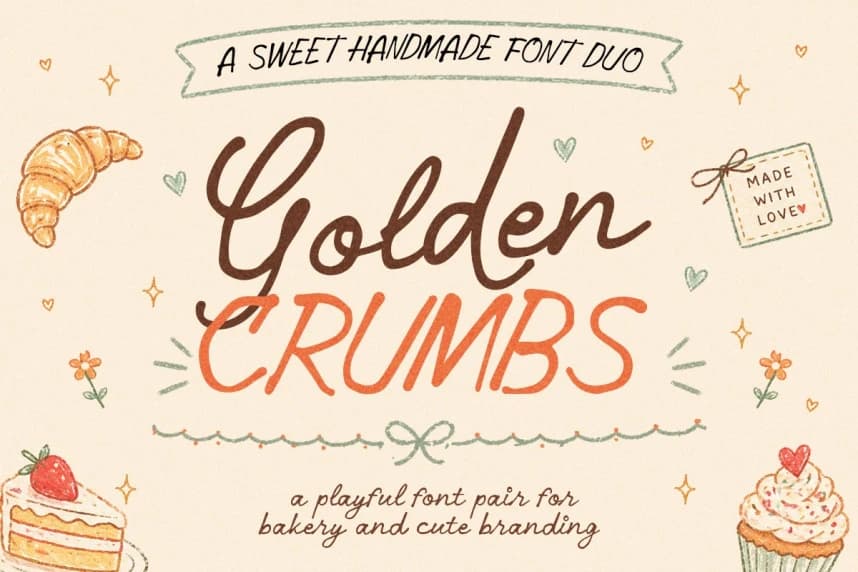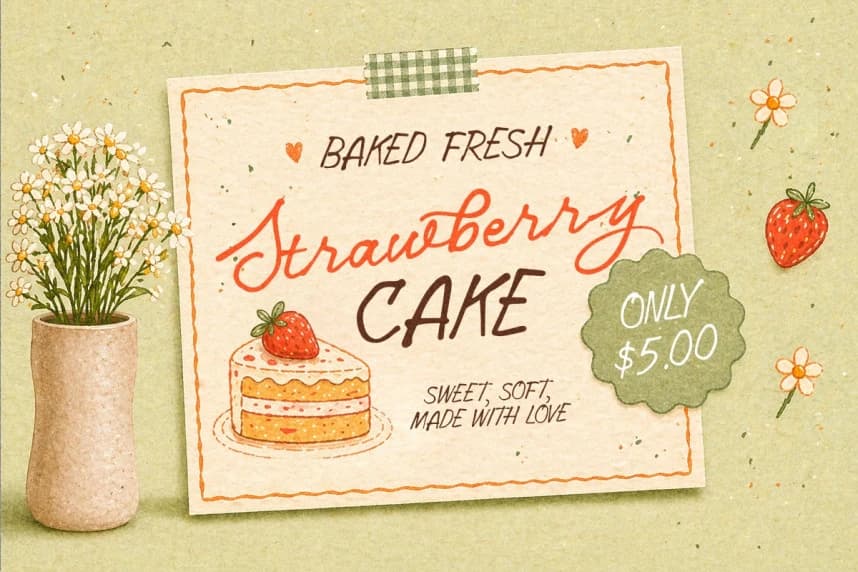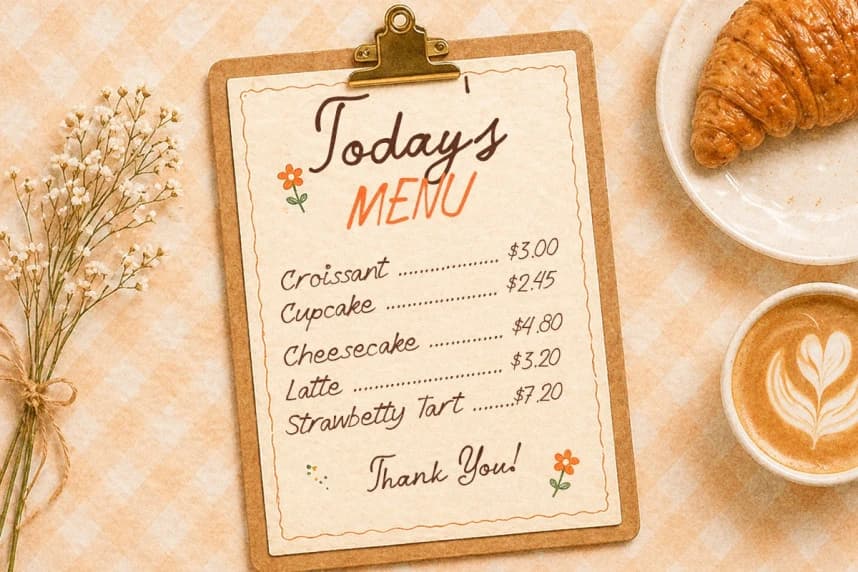
Golden Crumbs Font
Golden Crumbs Font comes in warm and delightful, mixing a soft handwritten script with a playful sans that feels like fresh treats straight out of the oven. It carries a cozy, cute vibe with a hint of vintage charm, making it just right for bakery logos, packaging